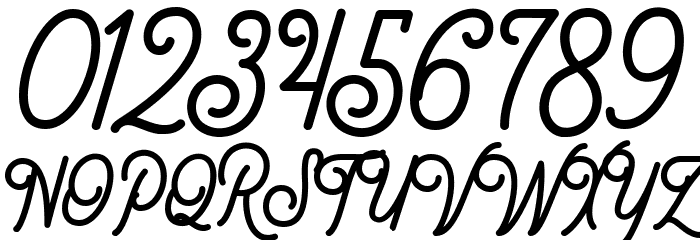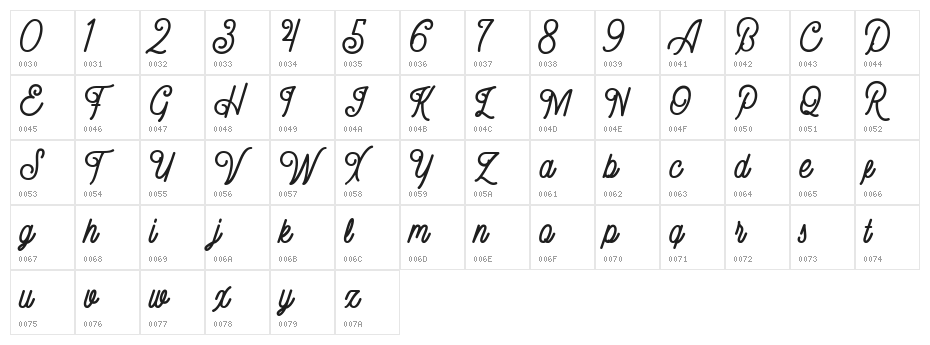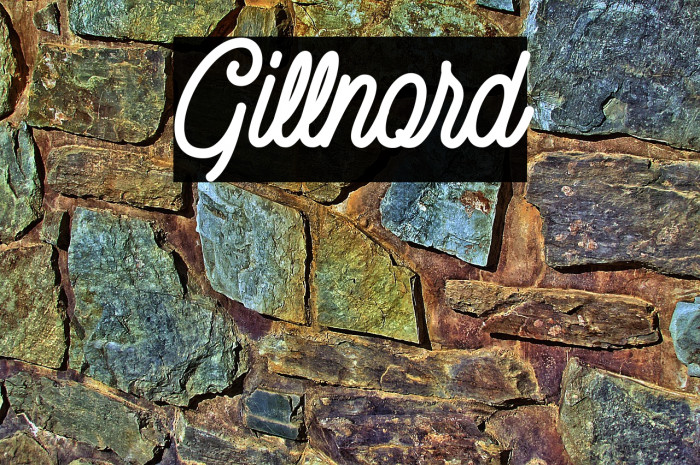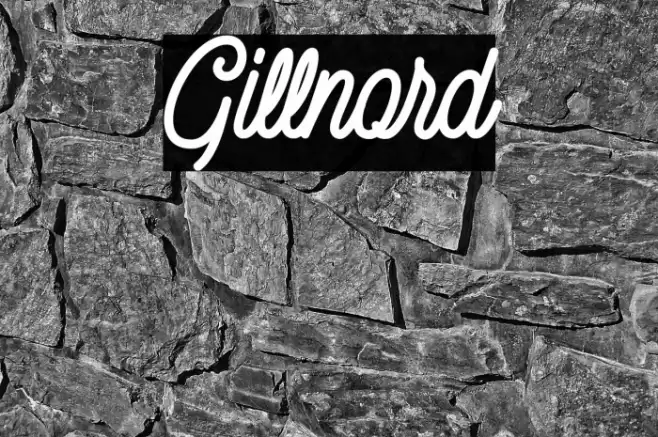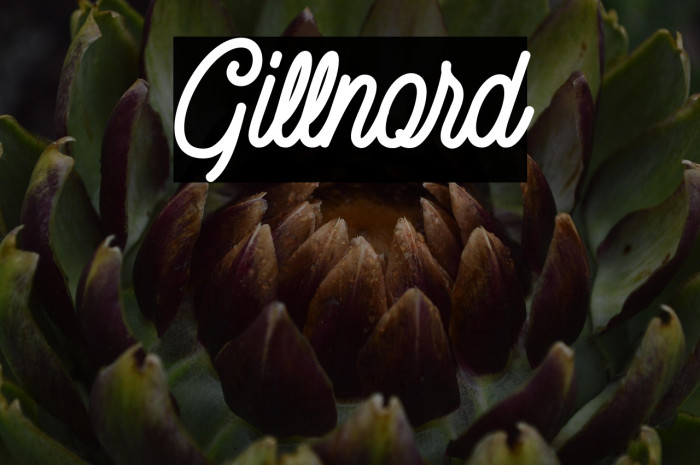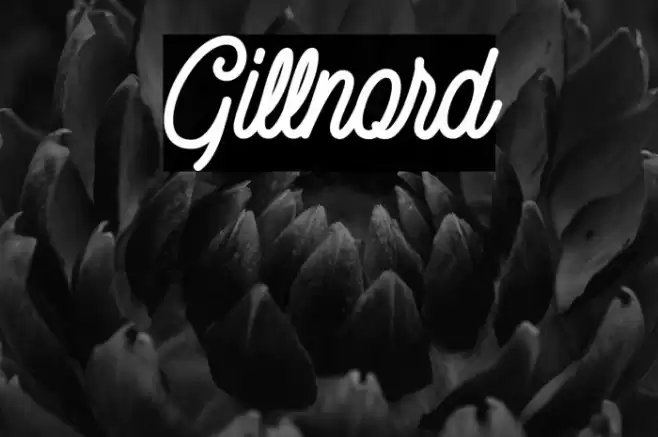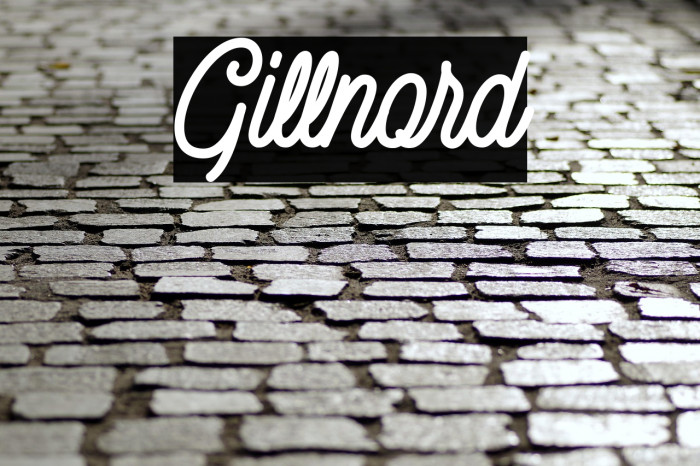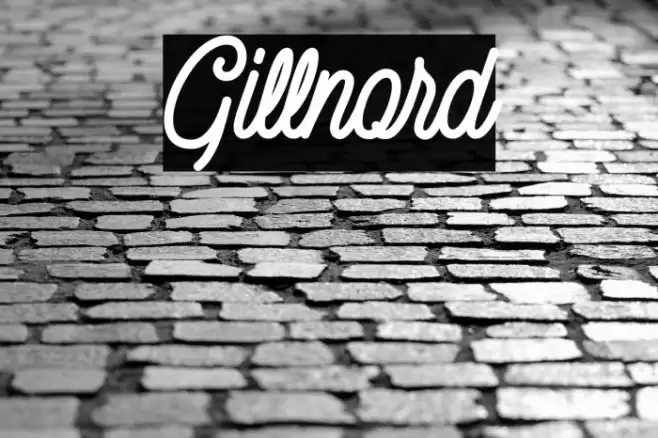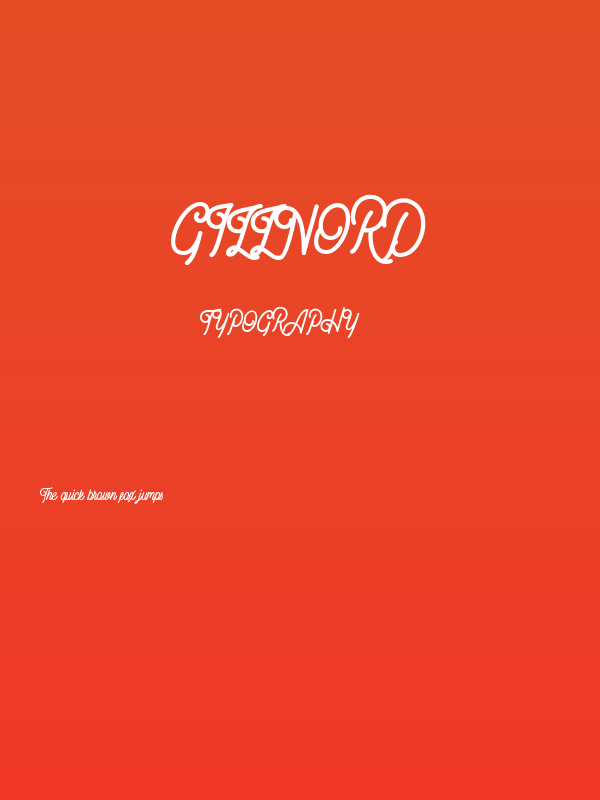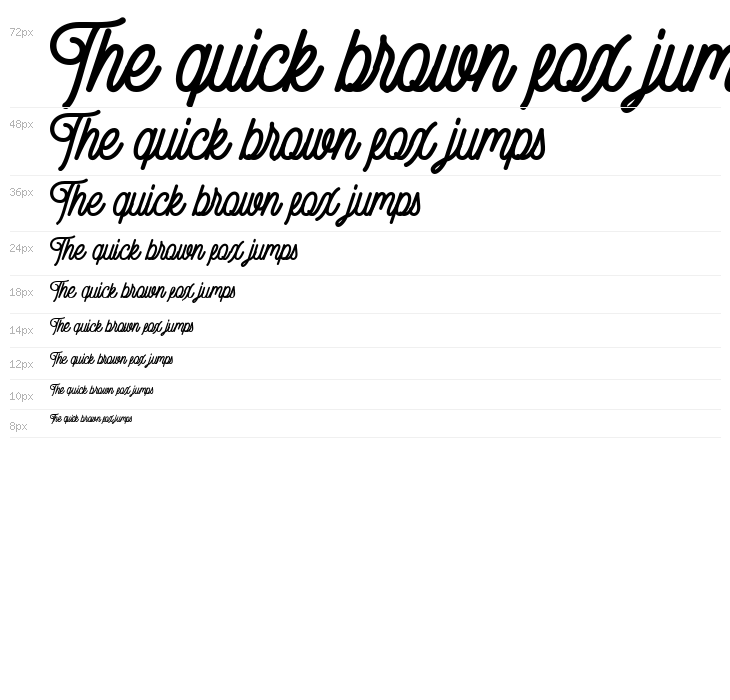
Gillnord Font
Gillnord Description
This font is a stylish and elegant script typeface that features flowing, interconnected letters with a smooth and sophisticated appearance. The uppercase letters are characterized by their graceful curves and loops, giving them a sense of movement and fluidity. The lowercase letters maintain a consistent style, with rounded edges and a slightly slanted orientation that enhances the cursive feel. The numerals are designed to match the overall aesthetic, with similar curves and a harmonious look. Special characters are seamlessly integrated, maintaining the font's cohesive design. This typeface exudes a sense of elegance and charm, making it suitable for a variety of creative applications.